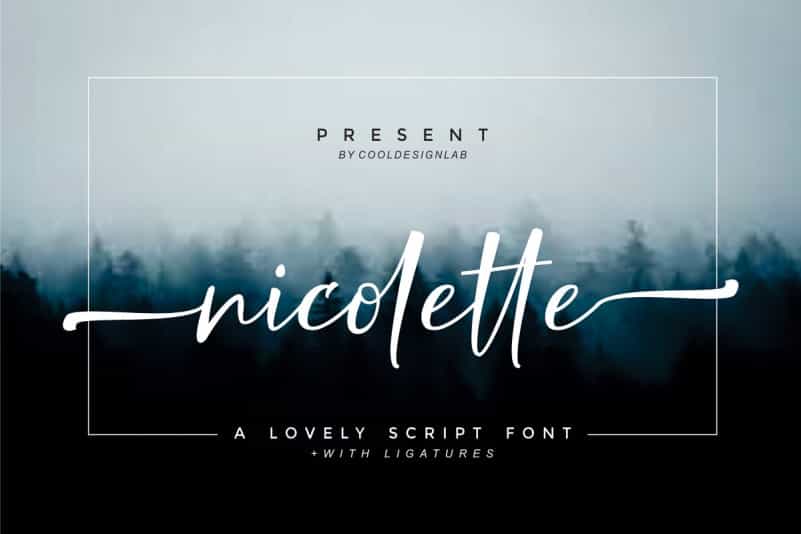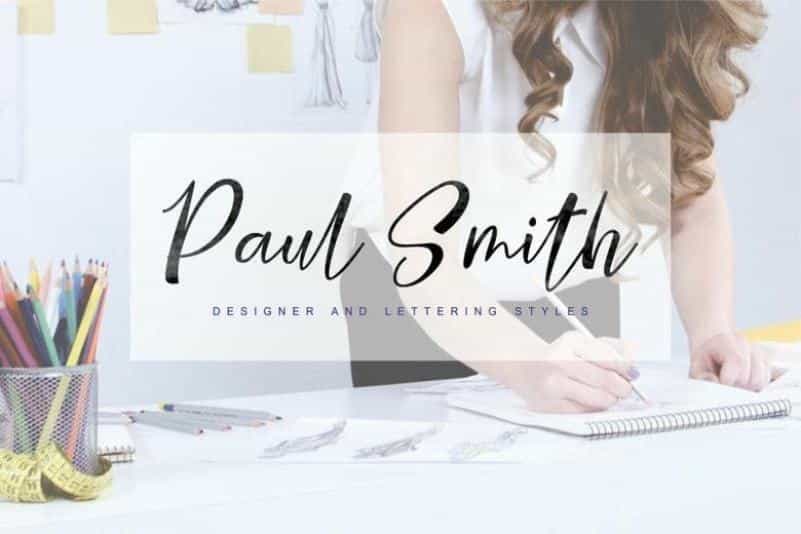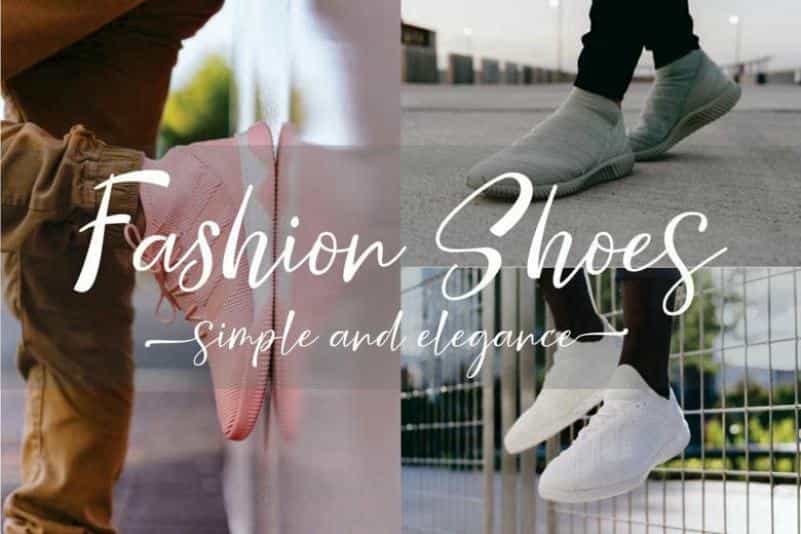
I would like to introduce you to Nicolette Font! A charming script font, This is a handwritten font with a funny and modern calligraphy look. Ideal for creating the most sophisticated stylish images – or simply, to add a touch of class to your designs. Nicolette is a script font which is handwritten and has a modern touch plus front and back swashes. It can be used for different things.